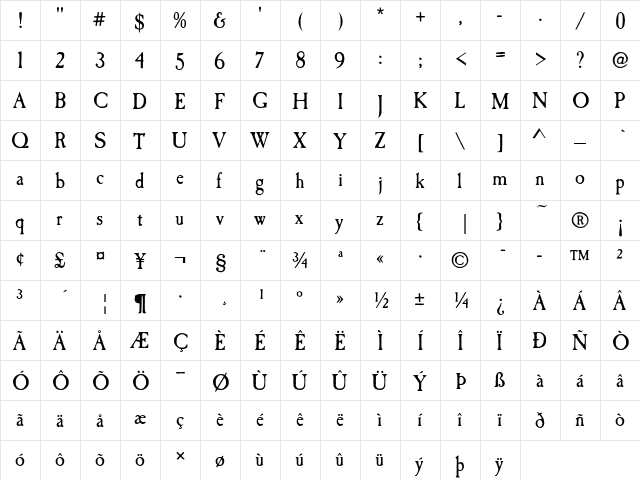
Caslon Antique T Regular
Design Context for Caslon Antique T Typeface
Caslon Antique T has the warm character of retro typography — evoking diners, record sleeves, and the golden age of print advertising.
Ideal for diner signage, record shop branding, 70s/80s-themed projects, and heritage product labels.
Font Pairing: Combine Caslon Antique T with a simple slab or neutral sans — period-accurate companions reinforce the vintage feel without competing for attention.
Pro Tip: Lean into Caslon Antique T's period character by pairing it with aged paper textures, muted colour palettes, and vintage illustration styles.